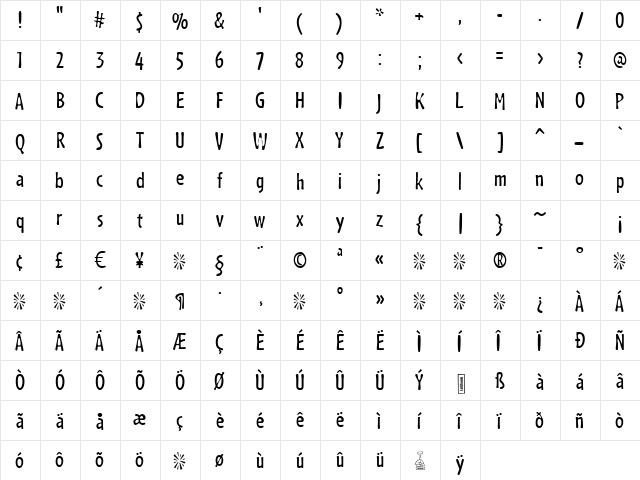
Cafecoco Regular
Design Context for Cafecoco Typeface
Cafecoco takes a measured approach to typography — its balanced proportions and neutral character make it a reliable workhorse for both digital and print work.
Pro Tip: Pair Cafecoco with a font of contrasting weight or personality to build a more expressive typographic hierarchy.